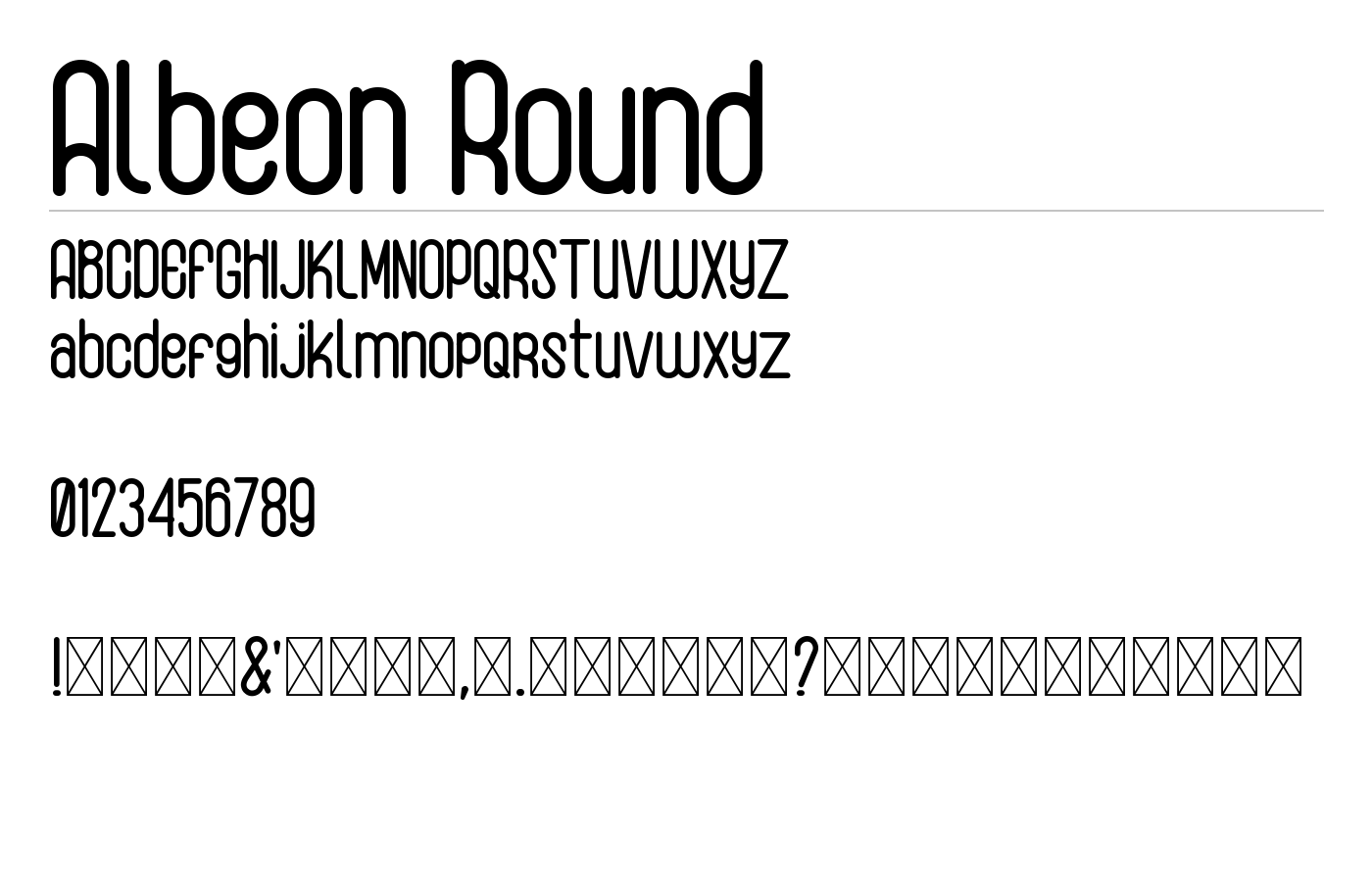
Albeon Round is a modern, narrow sans serif font with a unique rounded finish that adds a friendly yet sleek character to its tall, condensed letterforms. Its clean lines and consistent stroke weight create a contemporary look, making it ideal for branding, headlines, and digital use where a stylish and approachable feel is desired. This font works well in creative projects seeking a balance between modern minimalism and subtle personality.
Albeon Round Font